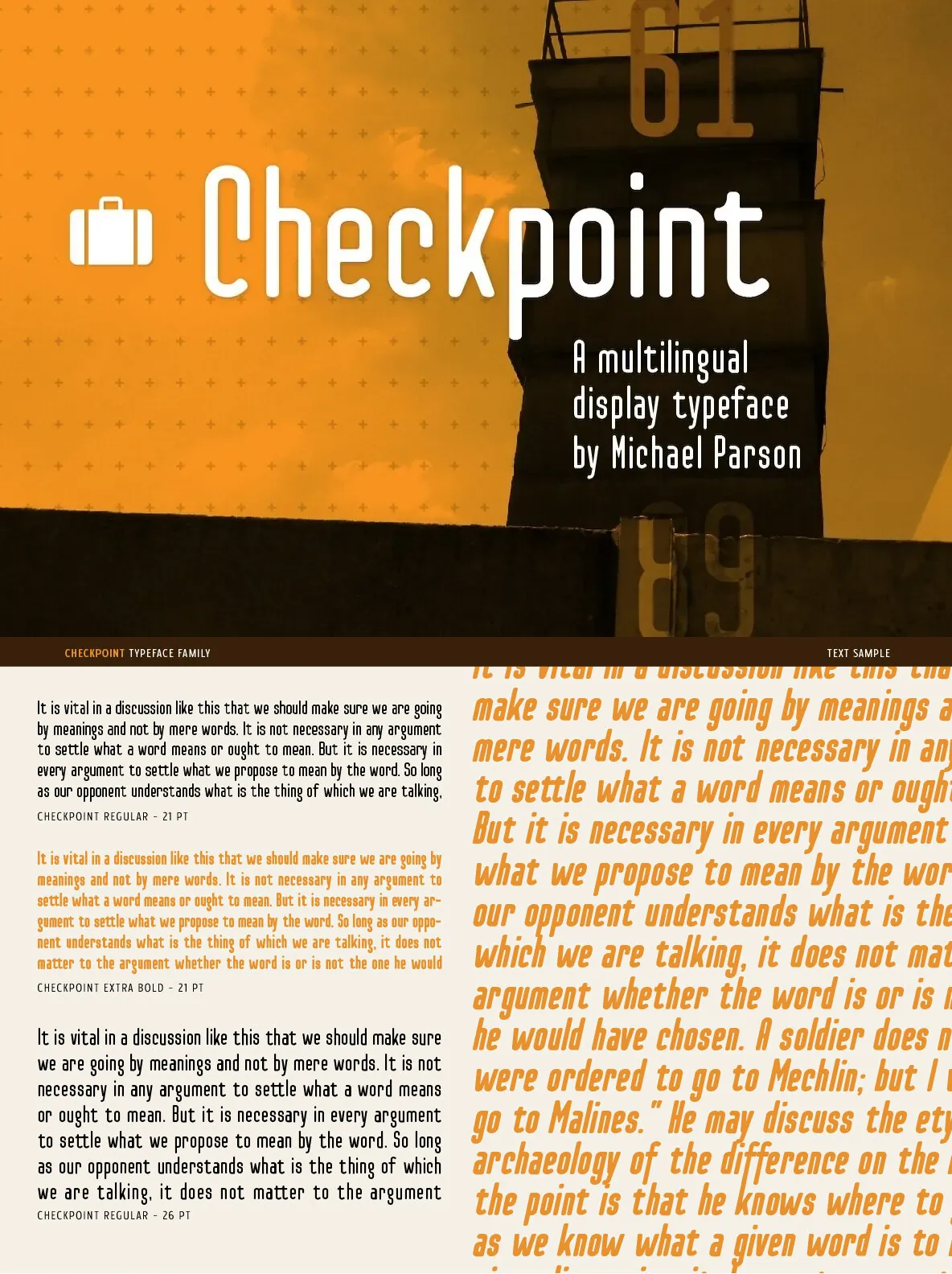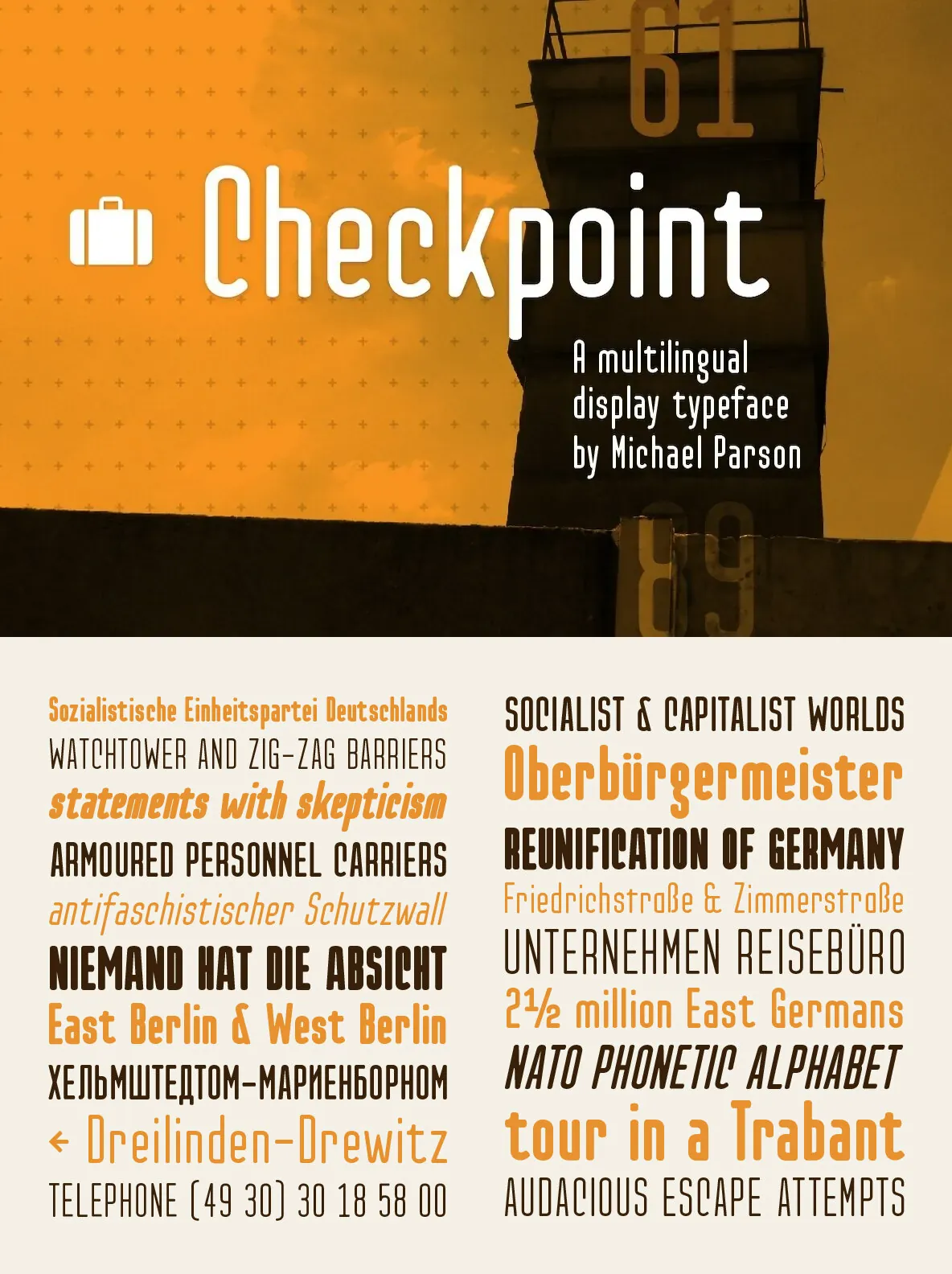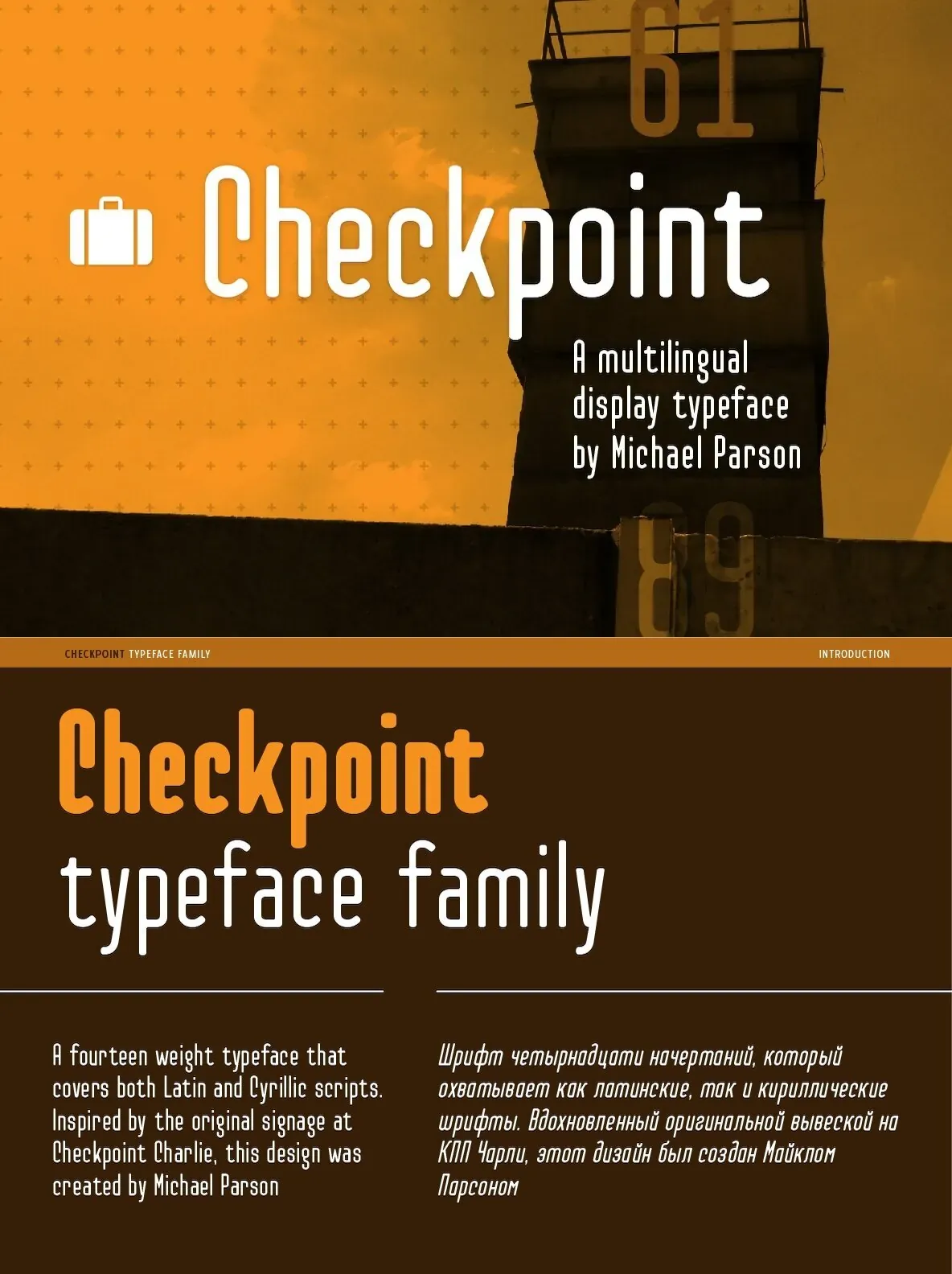
Checkpoint Font
Checkpoint — Berlin Grit, Softened Ends
Checkpoint is a display typeface family inspired by the lettering on the historic border hut at Checkpoint Charlie in Berlin. It draws on that specific piece of signage history and translates it into a confident contemporary system for graphic design.
A condensed sans, Checkpoint conveys strength while keeping a touch of softness through rounded terminals. Its modular construction creates a strong vertical presence, which suits titles, headlines, and branding projects. The family includes 14 styles and an extended character set that supports most Latin and Cyrillic-based alphabets—covering over 240 languages. Checkpoint also includes a range of OpenType features, giving you options for numeral styles and layout choices to match the setting.